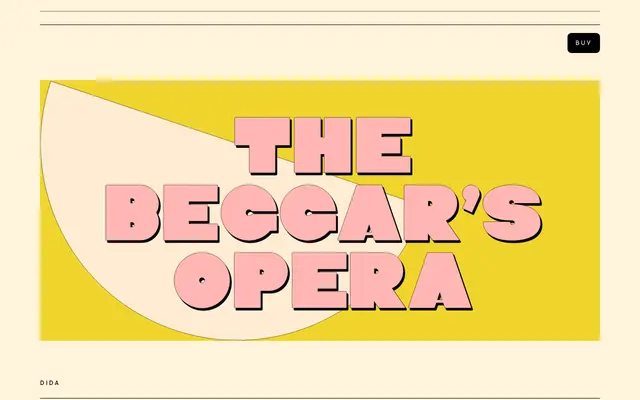
Dida
VJ Type · Jérémy Schneider · 2016
A single-weight display face with rounded geometric forms, originally drawn for the Parisian Théâtre des Bouffes du Nord in 2016.
Designed by Jérémy Schneider for a Parisian theatre commission, Dida takes a heavy, rounded approach to geometric display lettering. Its large forms and soft construction give it a playful quality despite the weight, and it was conceived alongside Scalie as an expressive pairing. Available in one weight, it suits posters, logotypes and cultural identity work where typographic personality is the point.
A single-weight display typeface with large rounded shapes and geometric construction, designed expressly for theatrical use and expressive pairing contexts rather than text setting.